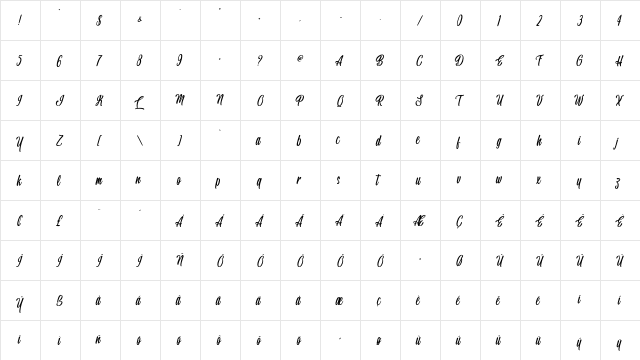
Handsome Boss - Personal Use Regular
| Foundry | Typhoon Type - Suthi Srisopha |
| Designer | Typhoon Type - Suthi Srisopha |
Design Context for Handsome Boss - Personal Use Typeface
Handsome Boss - Personal Use flows with the natural rhythm of handwritten lettering, making it ideal for designs that call for warmth and personal expression.
Font Pairing: Combine Handsome Boss - Personal Use with a simple geometric sans for maximum contrast — the tension between flowing curves and clean structure is a classic typographic pairing.
Pro Tip: Pair Handsome Boss - Personal Use with a clean sans-serif for supporting text. The contrast between fluid script and geometric structure creates an elegant typographic hierarchy.